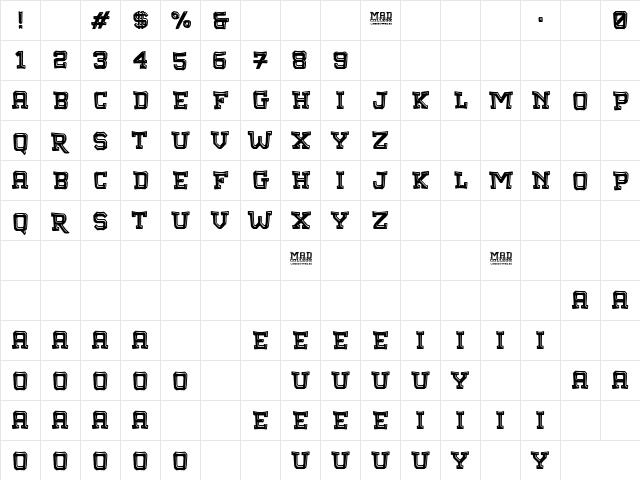
Mad College Regular
Design Context for Mad College Typeface
Mad College brings high-energy athletic personality to the page — its confident, muscular forms are built for impact.
Built for sports team identities, athletic apparel, event posters, and high-energy promotional material.
Font Pairing: Use alongside a condensed or geometric sans for supporting copy — keep the pairing bold, functional, and free of ornament.
Pro Tip: Mad College thrives on contrast — try it large, bold, and tight against a clean background for maximum visual impact.